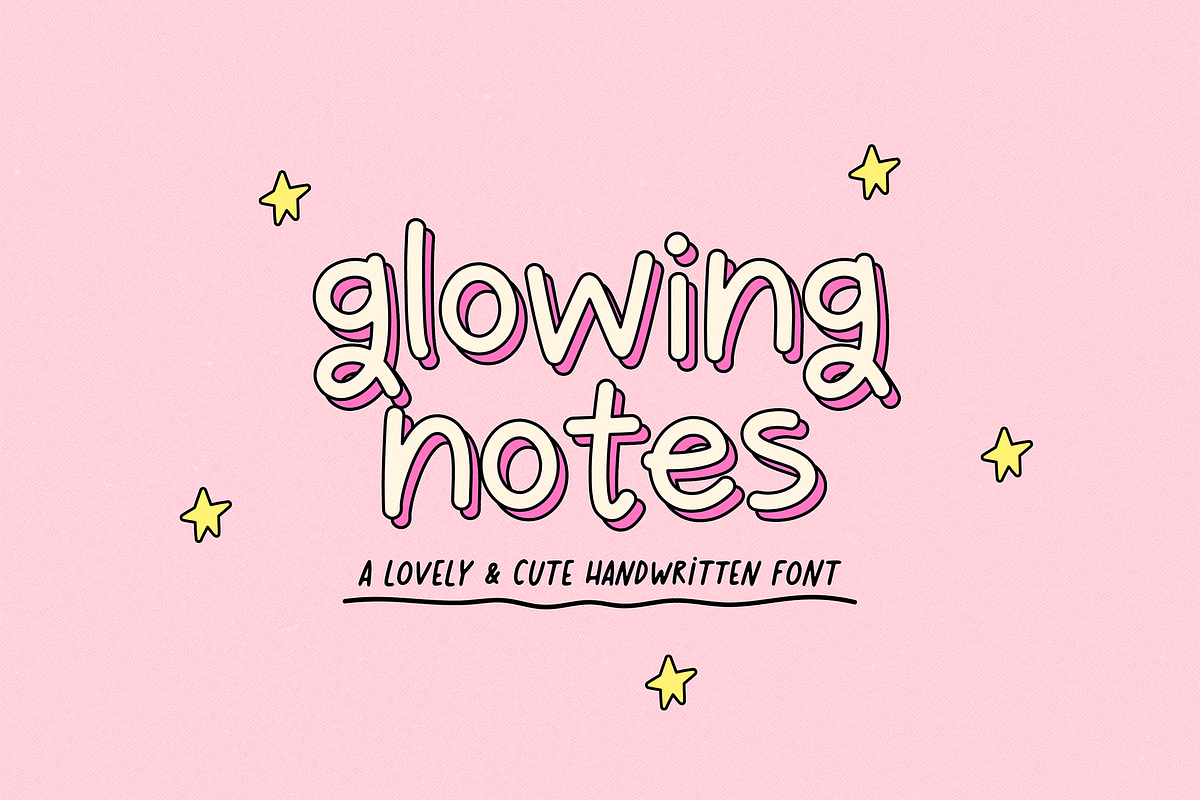
Glowing Notes Cute Font Free Download is an adorable, bubbly typeface that radiates fun and positivity. With its rounded letters, playful curves, and cheerful vibe, this font is perfect for school projects, journaling, stickers, scrapbooks, kids’ branding, and pastel-themed social media content. It’s designed to feel like a handwritten note filled with joy and sparkle.
Whether you're creating planner pages, cute quotes, or friendly logos, Glowing Notes brings a soft, youthful charm that instantly connects with viewers. Download it for free to experiment and get inspired, but remember to purchase a license for any commercial or monetized use.
Add a little light and love to your designs with Glowing Notes Cute Font Free Download, and make your words shine with sweetness, creativity, and charm. It's a must-have for anyone who loves soft aesthetics and playful, heartwarming design.